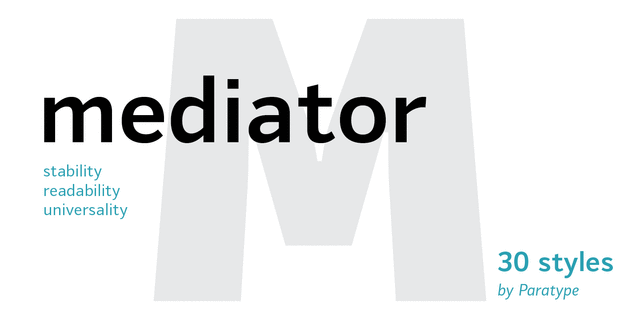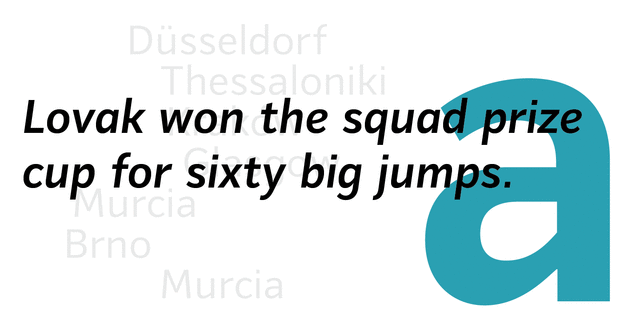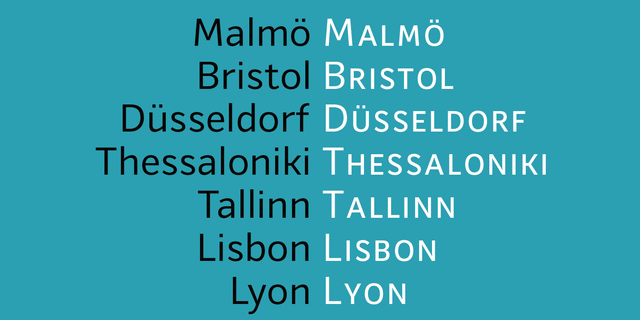
Mediator (30 fonts)
About Mediator is a balanced contemporary sans serif typeface that performs well both in display sizes and body text. The family contains 30 fonts in 3 widths: 8 romans with matching italics, of slightly extended proportions, from Thin to Black; 7 narrow and 7 condensed, from Thin to ExtraBold. The character set in normal upright faces was expanded to include small caps and all faces include old style figures. The typeface was designed by Manvel Shmavonyan with the participation of Alexander Lubovenko and released by ParaType in 2016.